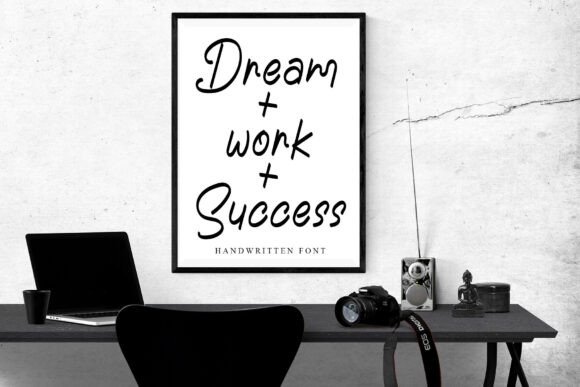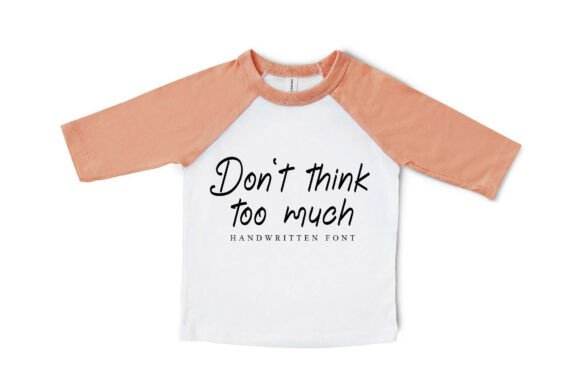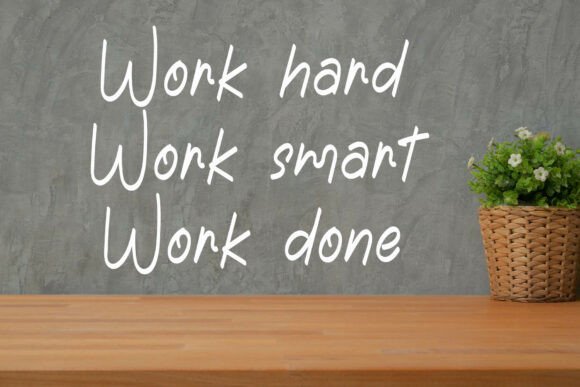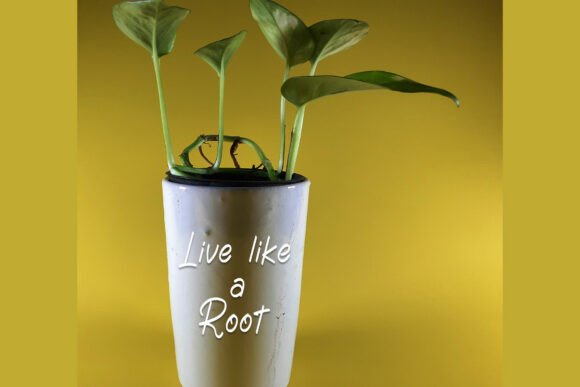
Introduction to Ruellia Font
Have you ever stared at a blank page, trying to bring your creative vision to life, only to be held back by the limitations of a dull font? It’s a frustrating feeling, especially when you’re working on a design project that requires a touch of elegance and sophistication. That’s where Ruellia Font comes in – a game-changing design resource that’s sure to elevate your creative project to the next level.
As a designer, you know how important it is to have a high-quality font that can add depth and visual interest to your work. Ruellia Font is more than just a pretty face – it’s a carefully crafted collection of glyphs that can be used to create stunning designs with a transparent background, perfect for greeting cards, wedding invitations, and other special occasions.
With Ruellia Font, you’ll have access to a wide range of styles and designs that can be downloaded for free, making it an invaluable resource for designers of all levels. Whether you’re working on a creative project for school or a professional assignment, this font is sure to impress with its high-quality design and versatility.
Ruellia Font
- High-quality, elegant script font ideal for creative projects and design resources.
- Features a transparent background, allowing for easy layering and customization.
- High-resolution design (300 DPI) ensures crisp, clear typography in print and digital applications.
- Unique, flowing script design makes it perfect for wedding invitations, quotes, and other creative typography projects.
Honest Review: Ruellia Font
I recently had the chance to experiment with Ruellia Font for a creative project, and I’m excited to share my honest thoughts on this design resource.
- High-quality design: Ruellia Font boasts a sleek, modern aesthetic that’s perfect for a variety of creative projects.
- Transparent background: The transparent background option is a great feature for designers who need to add a touch of sophistication to their designs.
While Ruellia Font is a great choice for many projects, there are a few limitations to consider:
- Limited character set: The font’s character set is somewhat limited, which may not be suitable for projects that require a wide range of characters.
Overall, I’m impressed with Ruellia Font’s high-quality design and free download option. While there are some limitations, I believe this font is a great choice for designers who need a modern, sleek font for their creative projects.
Ruellia Font
The Ruellia Font is a versatile design resource ideal for various creative projects, offering a high-quality and stylish look. This font can be easily downloaded and used in a variety of applications.
Tips for Getting the Most Out of Ruellia Font
Experiment with different font sizes and styles to achieve the desired look. Use the font in combination with other design elements to create a visually appealing project.
The Ruellia Font is suitable for a variety of creative projects, including logos, business cards, and social media graphics. Its high-quality design makes it perfect for professional projects, while its transparent background feature makes it ideal for overlaying on images.